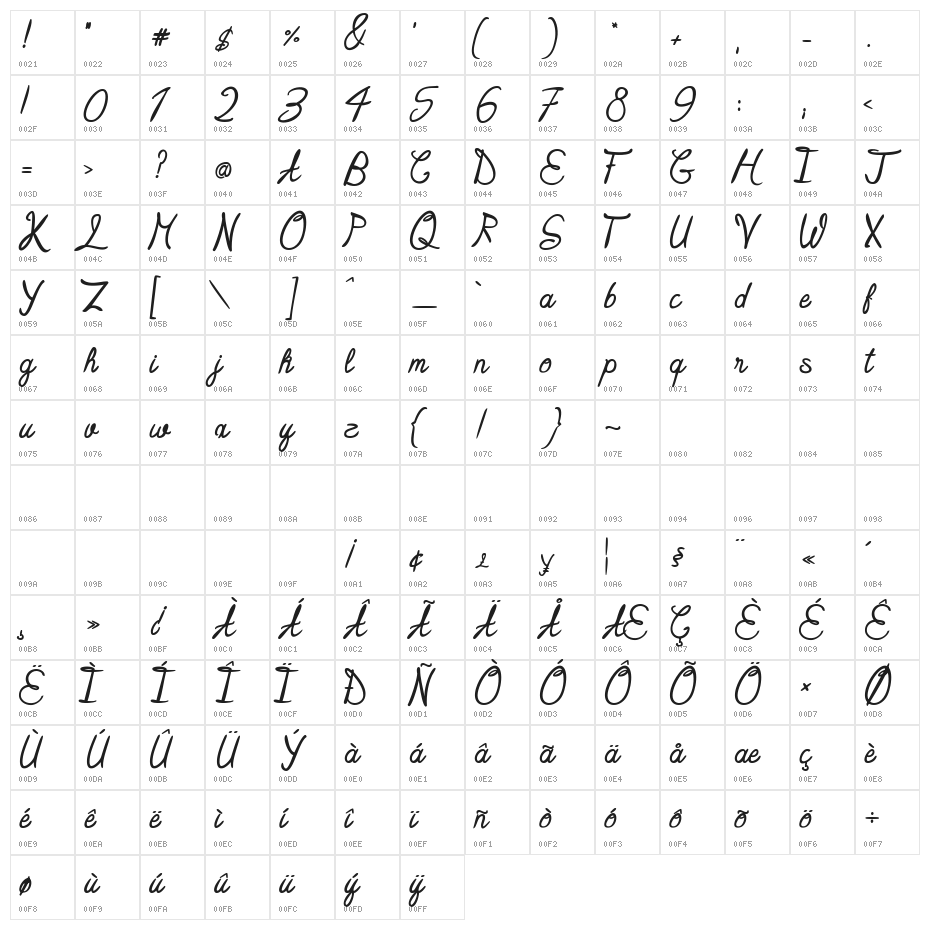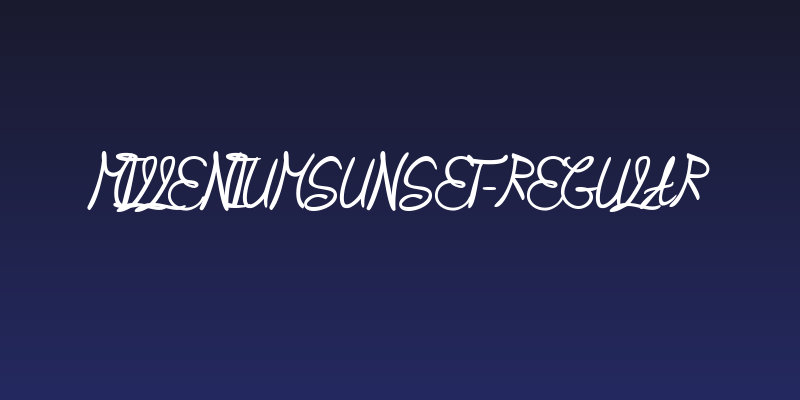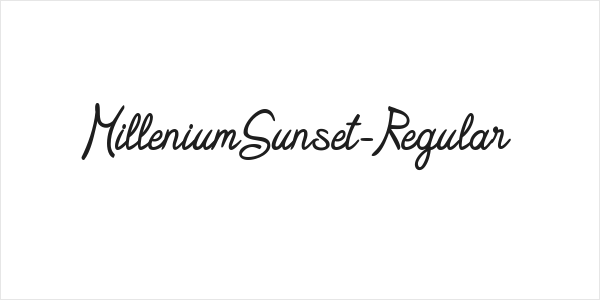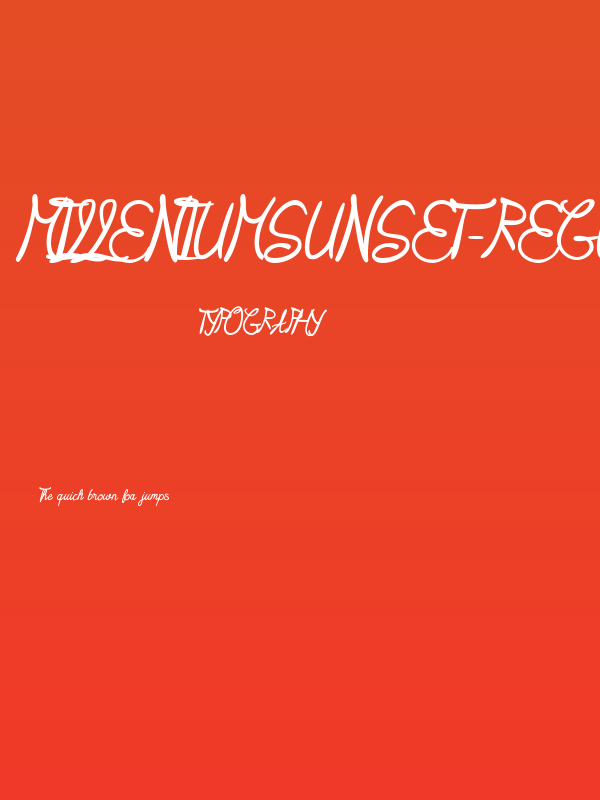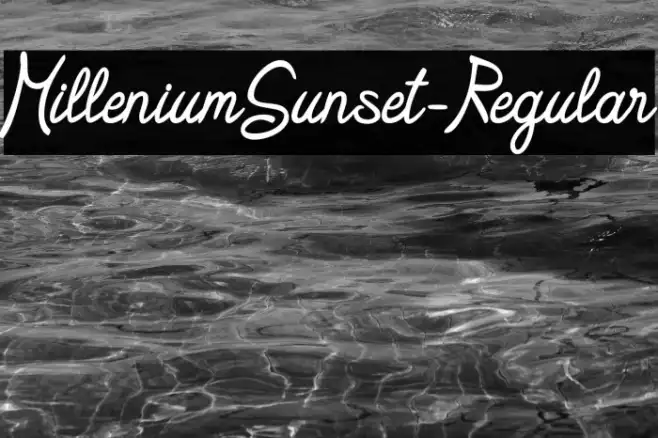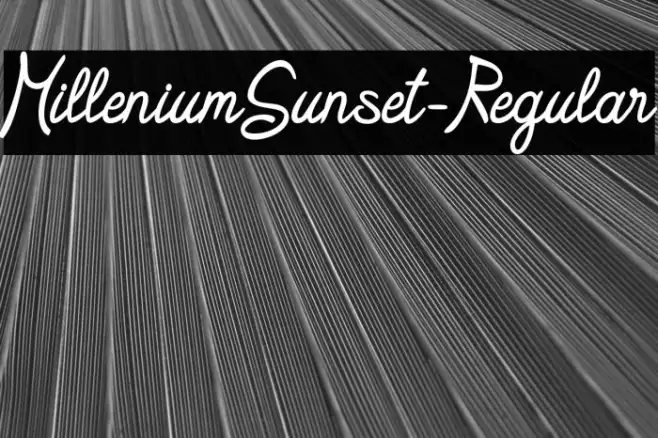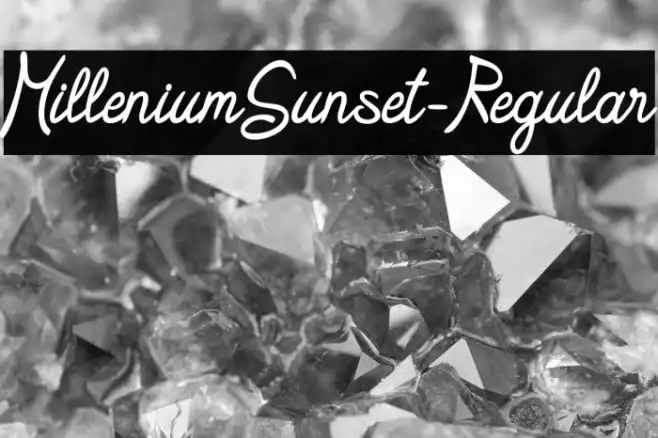
MilleniumSunset-Regular Font
MilleniumSunset-Regular Description
A flowing, cursive script font with a handwritten style, featuring smooth curves and elegant strokes.
| Font Family | Millenium Sunset |
| Use Case | Logos, Invitations |
| Proposed Projects | Invitations, greeting cards, personal branding. |